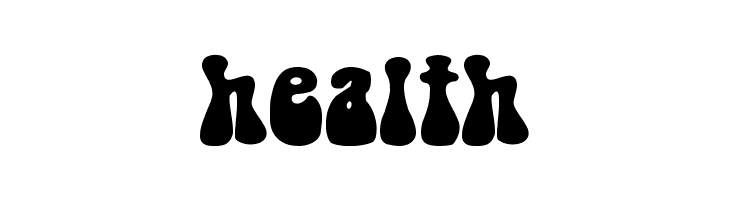
A bold, italic typeface with a dynamic and playful style.
A wide-stroke, textured font with a vintage, hand-drawn feel.
A classic serif font with elegant, Roman-inspired letterforms.
A bold, Gothic-inspired font with sharp, angular features and dramatic flair.
A modern, minimalist font with a unique strikethrough design.
A bold, retro-inspired font with playful, bulbous characters.
A bold, playful outline font with a whimsical, distorted appearance.